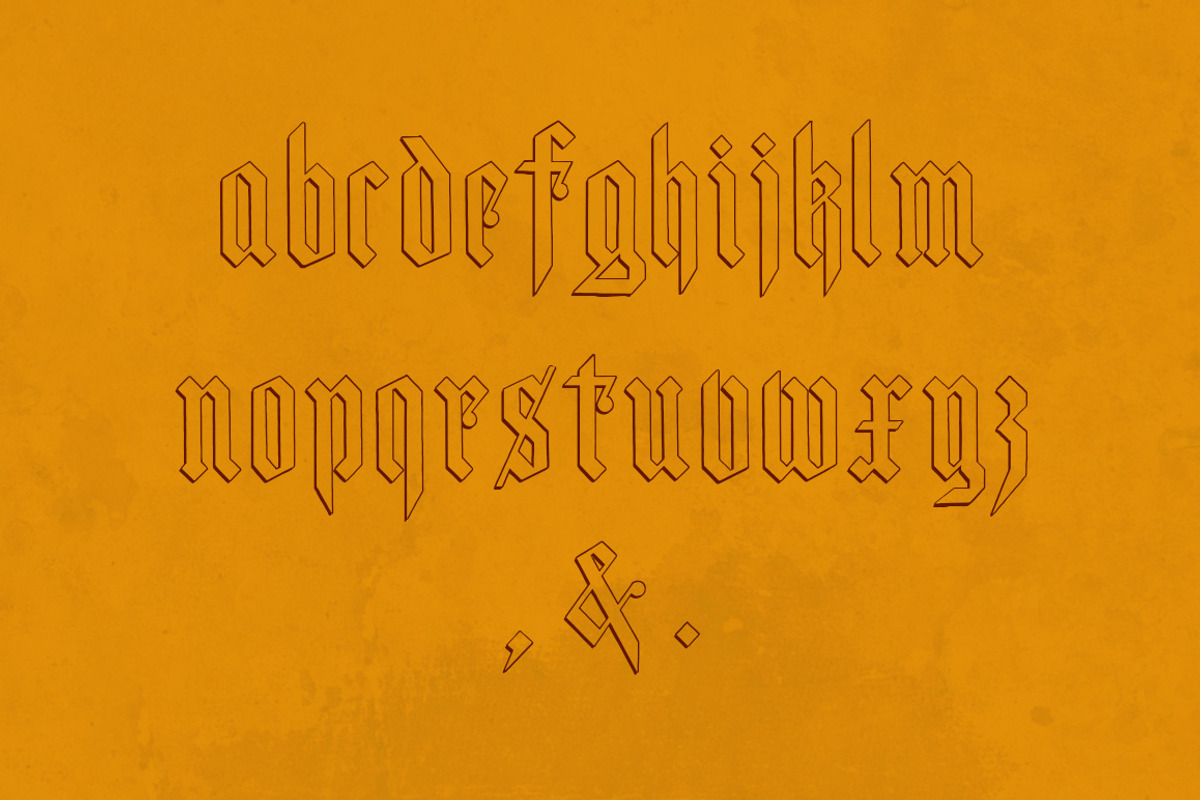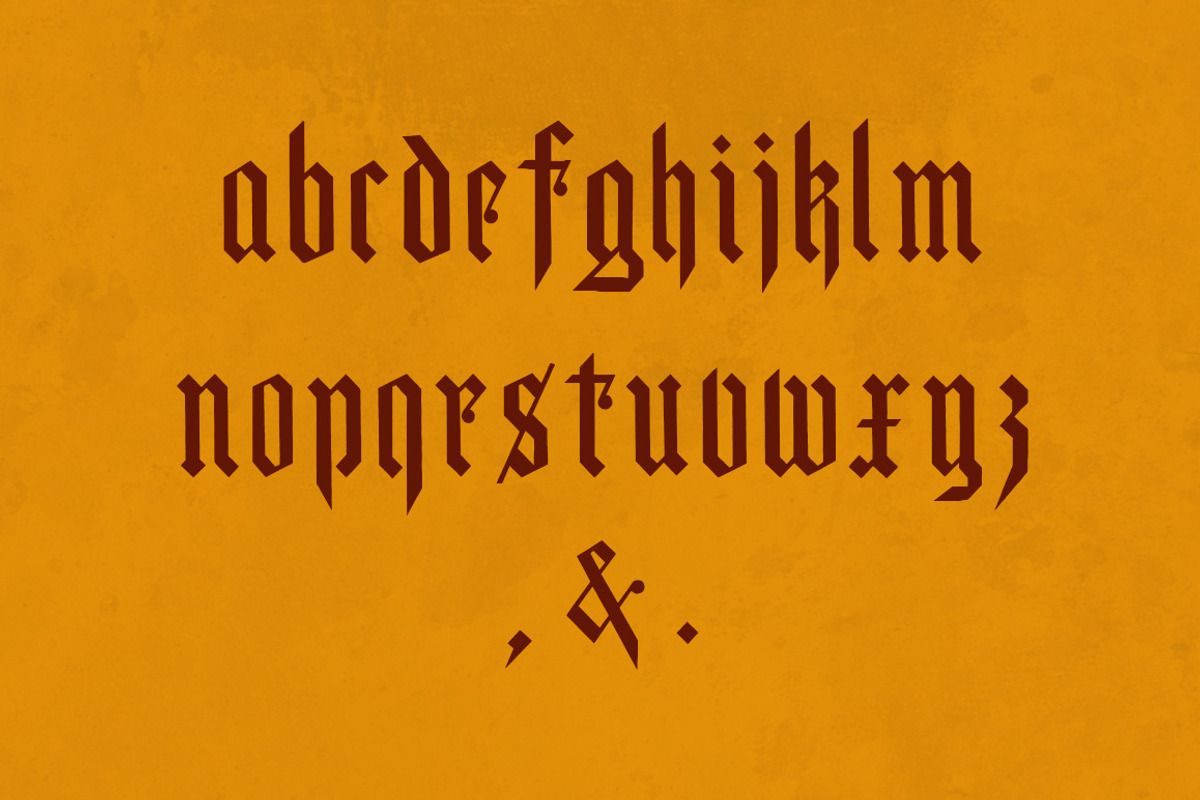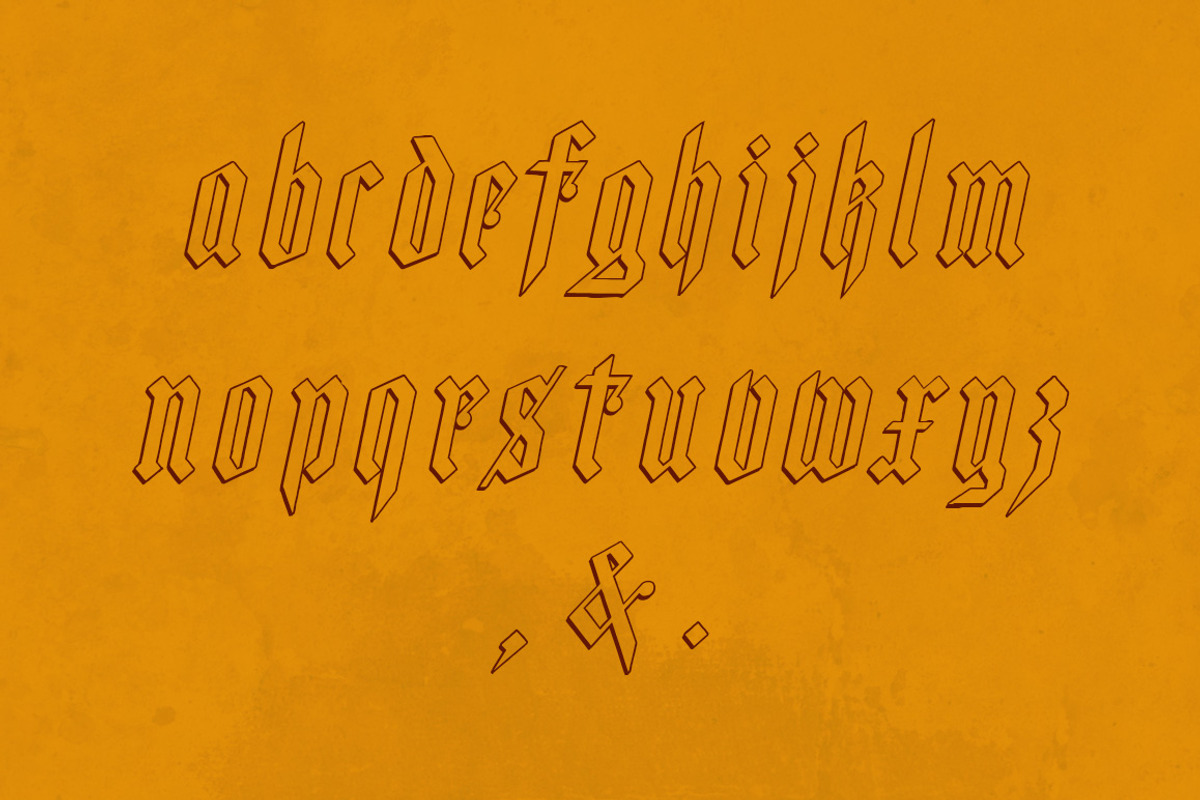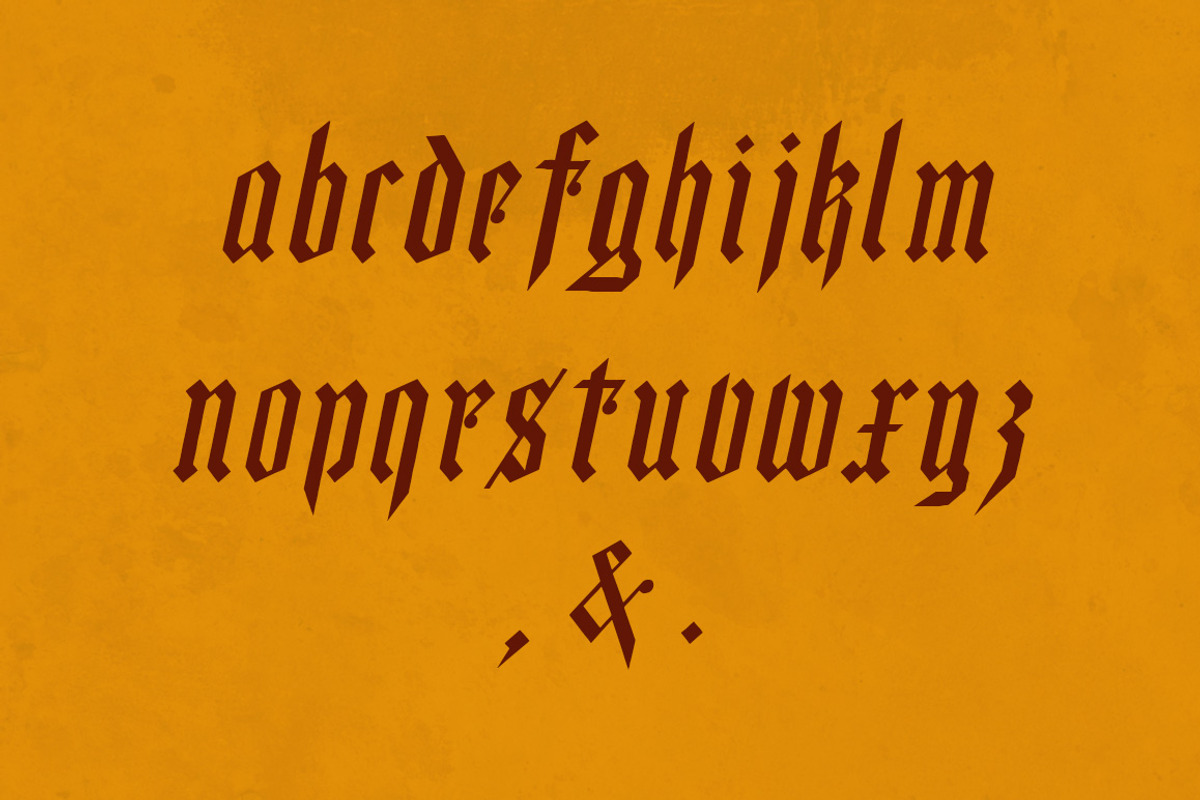
Parapet - Blackletter Typeface
Parapet - Blackletter Typeface by Blue Line Design is a font selected for branding, posters, packaging, typography.
- Derived from an authentic Victorian-era Gothic typeface, it is limited to lowercase and three symbol glyphs.
- Parapet Regular
- Parapet Outline Regular
- Parapet Italic Italic
- Parapet Italic Outline Italic
Parapet - Blackletter Typeface by Blue Line Design fits naturally into Branding, posters, packaging, typography.